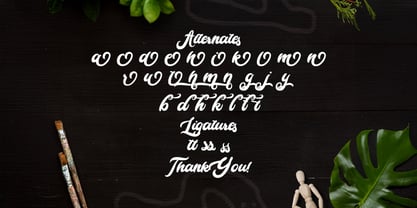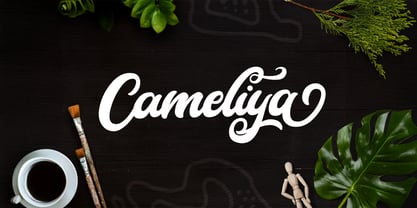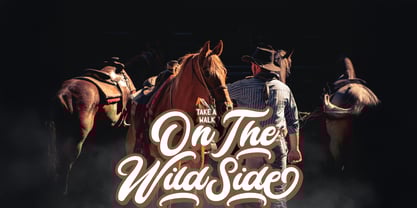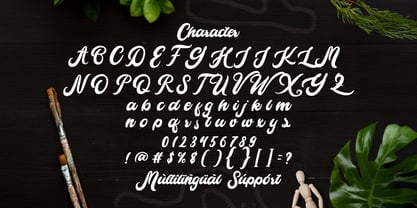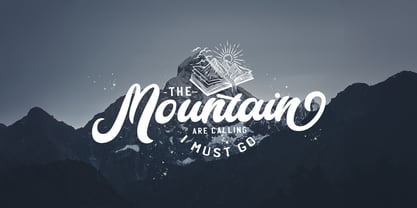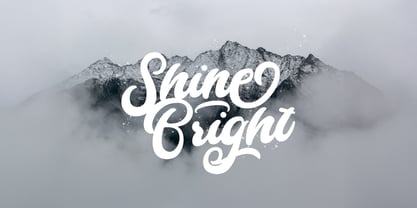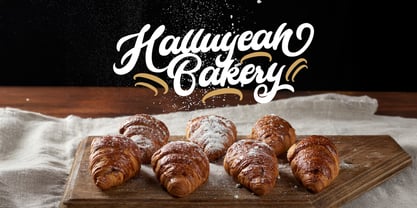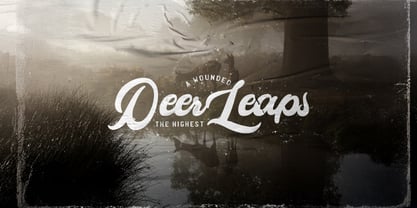
The Cameliya Font Family was designed by Virgiawan Listanto and published by Stringlabs Creative Studio. Cameliya contains 1 styles. More about this family
Cameliya is a retro bold script font. It is PUA encoded which means you can access all of the glyphs and swashes with ease! It features a varying baseline, vintage and retro taste, gorgeous glyphs and stunning alternates. Fall in love with its incredibly versatile style and use it to create spectacular designs!
Designers: Virgiawan Listanto
Foundry: Stringlabs Creative Studio